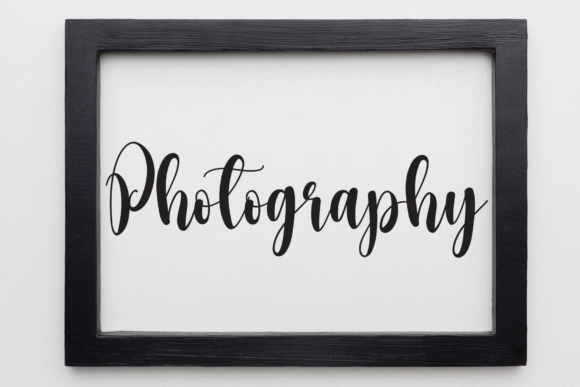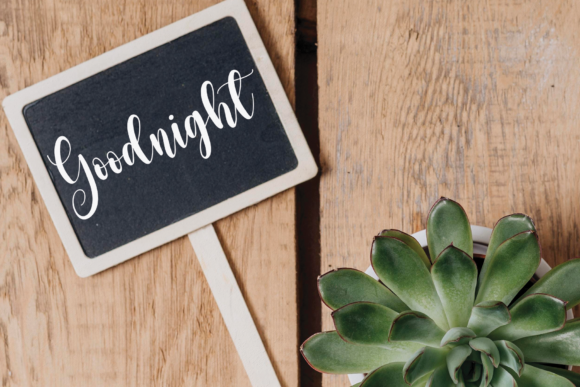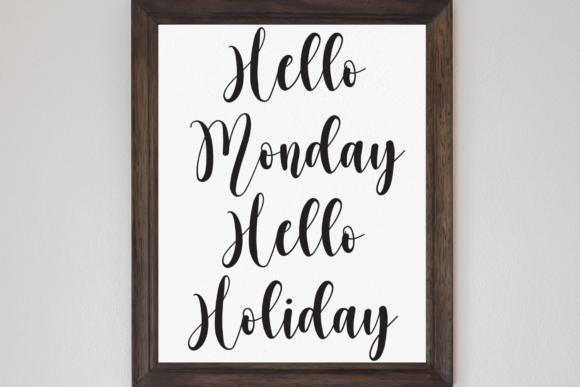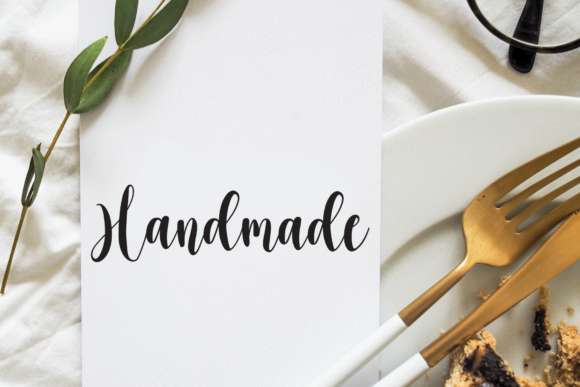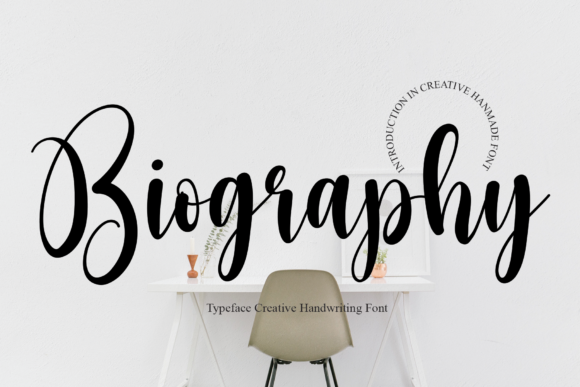
Introducing Biography Font: A Lovely and Timeless Handwritten Font
Are you a designer or crafter looking for a unique and beautiful font to elevate your creative projects? Look no further than Biography Font, a stunning handwritten font that is sure to capture the attention of your audience. With its lovely and timeless design, Biography Font is the perfect choice for creating eye-catching logos, branding, and quotes that will make your design come alive!
The Unique Charm of Biography Font
What sets Biography Font apart from other fonts is its unique and beautiful touch. Every letter has been carefully crafted to have its own distinct character, giving your design a personal and handmade feel. The font’s handwritten style is reminiscent of traditional calligraphy, but with a modern twist that makes it perfect for contemporary designs.
Biography Font is incredibly versatile and can be used for a wide range of design projects. Its elegant and sophisticated design makes it ideal for creating logos, branding, and quotes that will leave a lasting impression on your audience. Whether you’re designing a logo for a new business, creating a brand identity, or crafting a inspirational quote, Biography Font is the perfect choice.
Why Choose Biography Font?
So why choose Biography Font over other fonts? Here are just a few reasons why designers and crafters love this beautiful handwritten font:
- Unique and Beautiful Design: Every letter has a unique and beautiful touch that will make your design stand out.
- Timeless Style: The font’s handwritten style is timeless and will never go out of fashion.
- Elegant and Sophisticated: Biography Font is perfect for creating elegant and sophisticated designs that will impress your audience.
- Versatile: The font can be used for a wide range of design projects, from logos and branding to quotes and more.
Tips for Using Biography Font
Here are a few tips for getting the most out of Biography Font:
- Use it for Headlines and Titles: Biography Font is perfect for creating eye-catching headlines and titles that will grab the attention of your audience.
- Experiment with Colors and Textures: Don’t be afraid to experiment with different colors and textures to add depth and interest to your design.
- Pair it with Other Fonts: Biography Font pairs well with other fonts, so don’t be afraid to try pairing it with a sans-serif font for a contrasting look.
In conclusion, Biography Font is a lovely and timeless handwritten font that is perfect for designers and crafters looking to create eye-catching logos, branding, and quotes. With its unique and beautiful design, elegant and sophisticated style, and versatile uses, Biography Font is a must-have font for any creative project. So why wait? Download Biography Font today and start creating stunning designs that will leave a lasting impression on your audience!
Key Features of Biography Font
| Font Style | Handwritten |